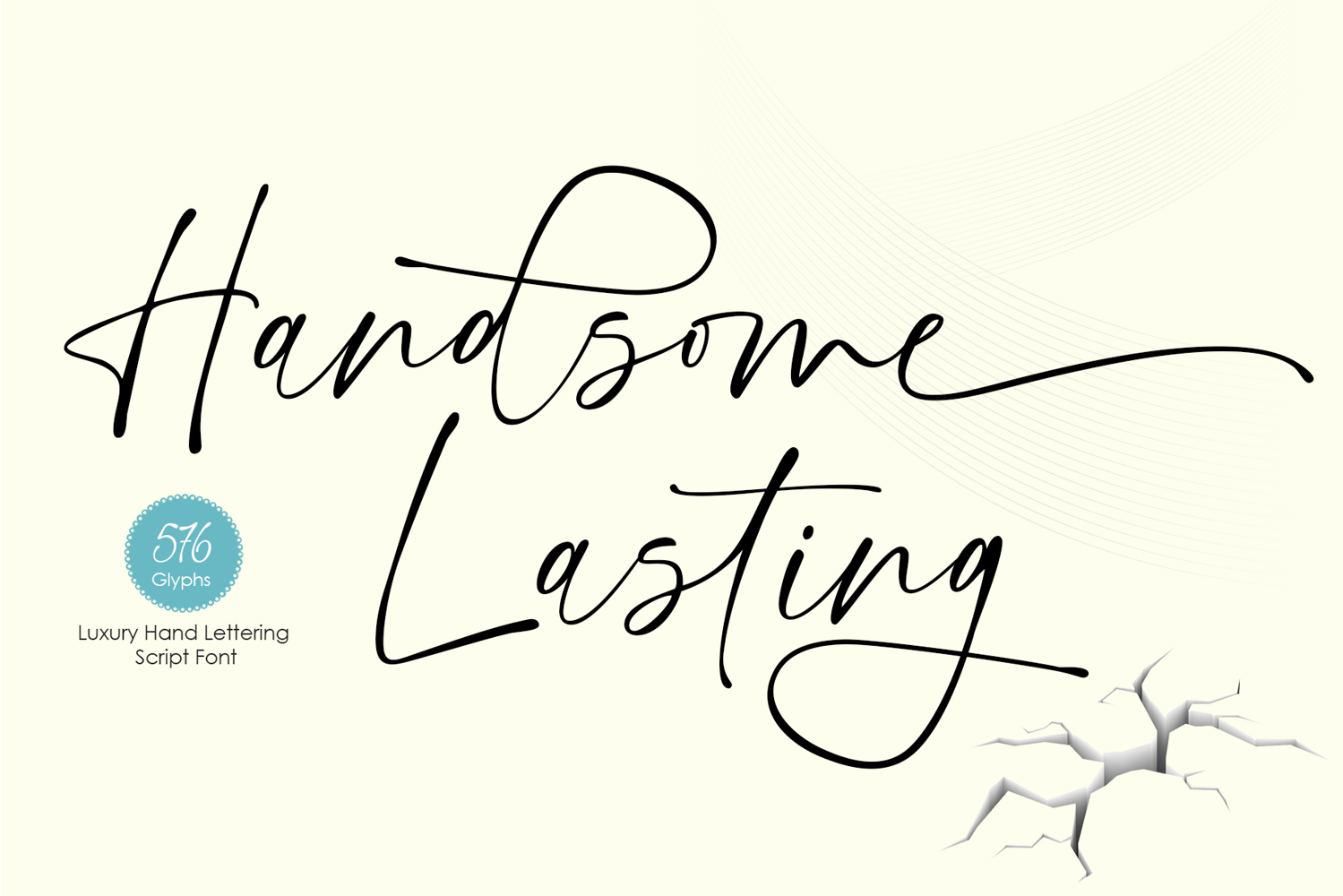
Handsome Lasting
Handsome lasting is a dazzling script font. This font is neatly crafted and highly detailed. Whatever the topic, this font will be a wonderful asset to your font library, as it has the potential to enhance any creation.
If your latest project needs a bit of an elegant touch, it's time to introduce Handsome Lasting to your font library. This stylish typeface features OpenType features such as ligatures, stylistic alternatives, style sets, swashes, discretionary ligatures, and even comes as a Web font.